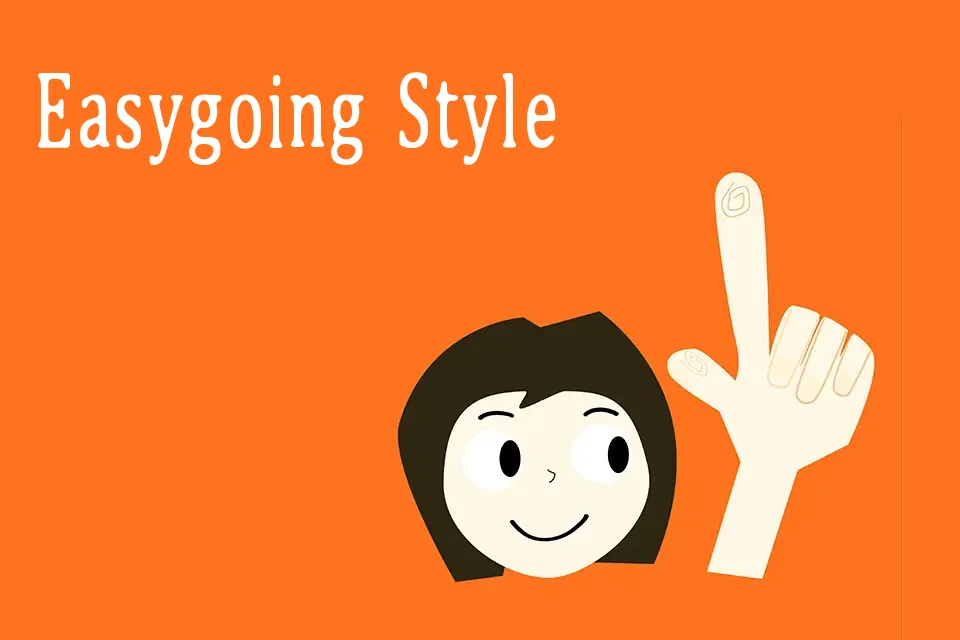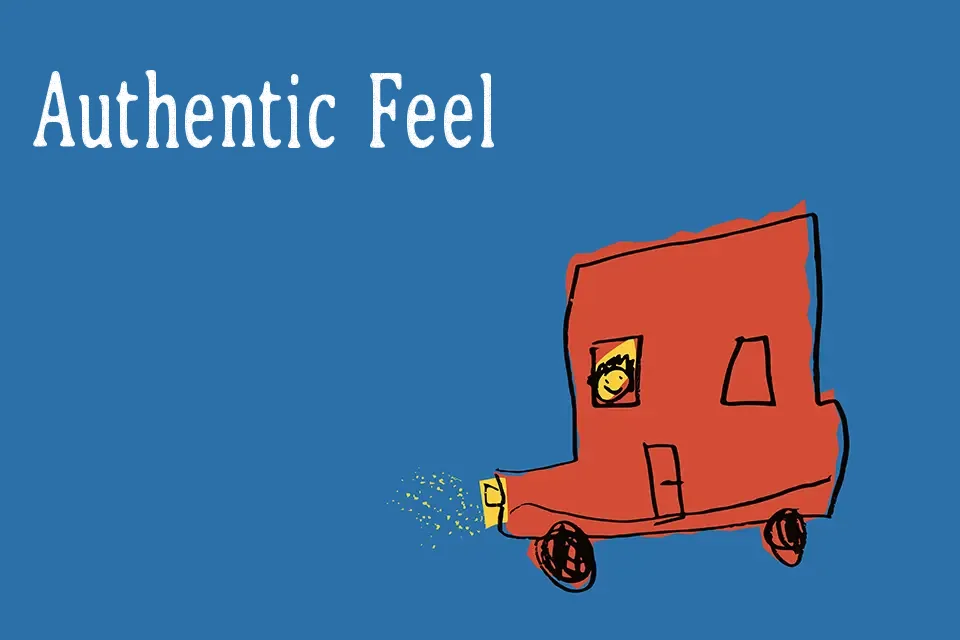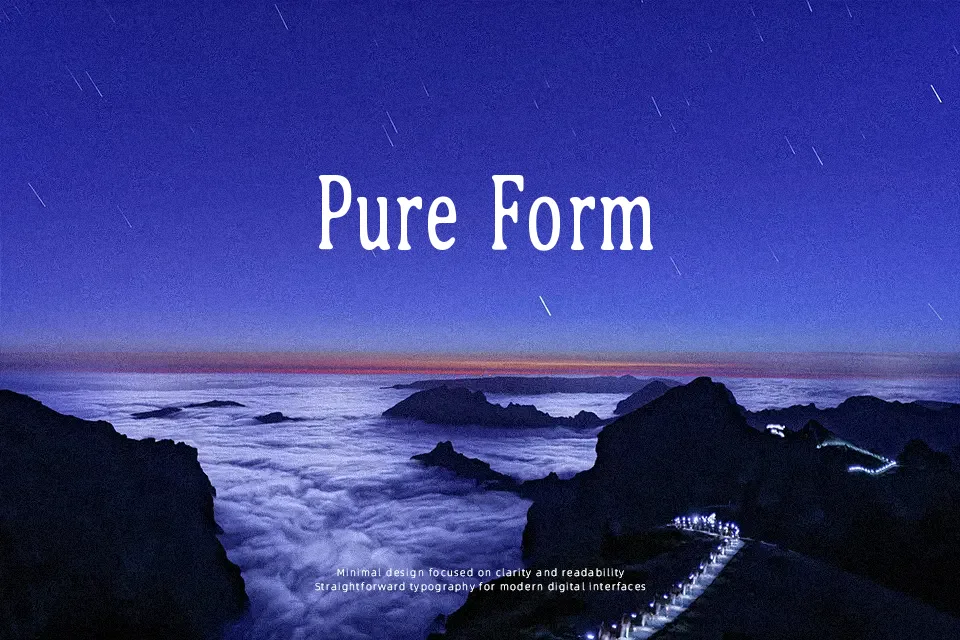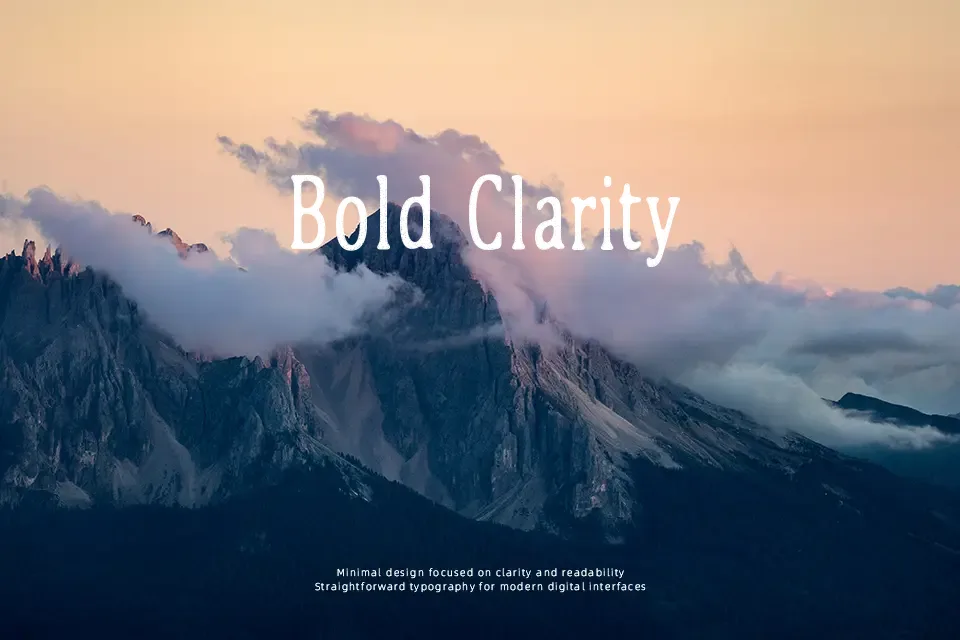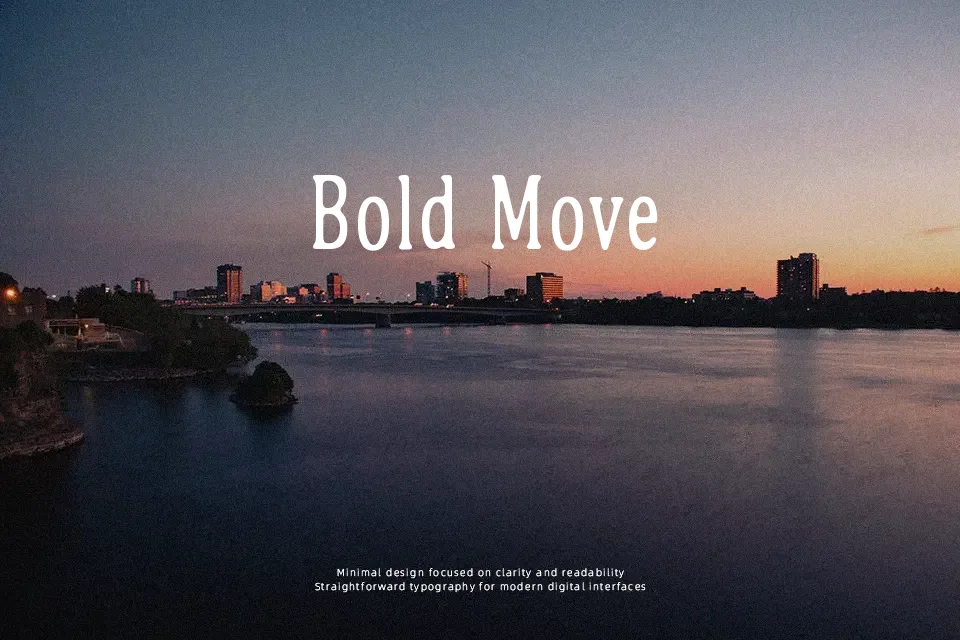
Pink Bunny Font
Pink Bunny Font uses uneven handwritten shapes, soft curves, and a loose display rhythm that gives short text an informal, playful presence. Its strokes appear deliberately irregular rather than mechanically consistent, while the varied proportions keep individual letters visually active. Spacing works best when the type is allowed room in larger headings, labels, and simple graphic compositions. The design is easier to recognize in short words than in dense copy, where its decorative forms can slow reading. It is a practical choice for child-focused artwork or casual promotional graphics, but small captions and extended paragraphs will feel less controlled.
Best For: kids event posters,playful product packaging,casual social media graphics,short display headlines
Perfect for headline, kids, and packaging, with a creative and decorative style.